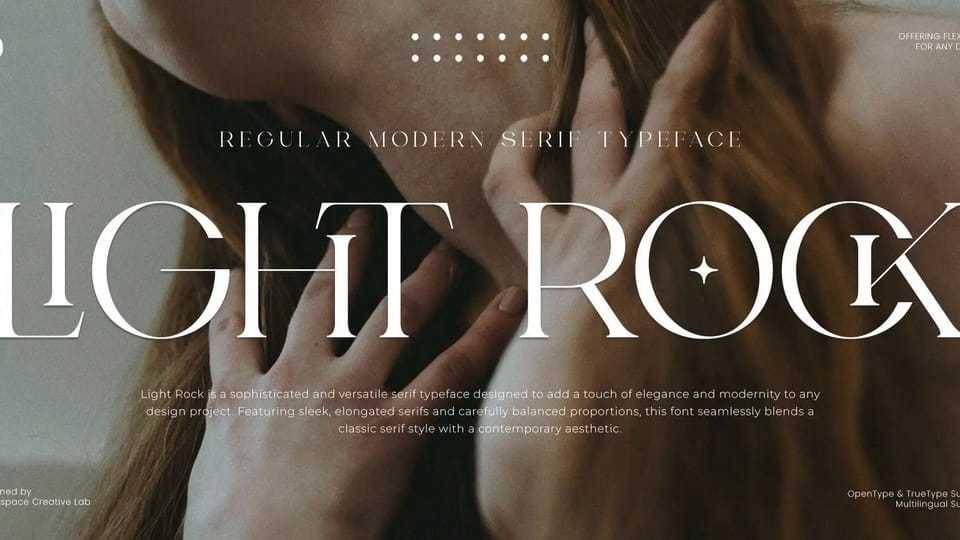
Download Light Rock font, a refined serif typeface that flawlessly blends modern elegance with timeless sophistication. Designed to elevate your creative projects, this versatile typeface exudes luxury and class,